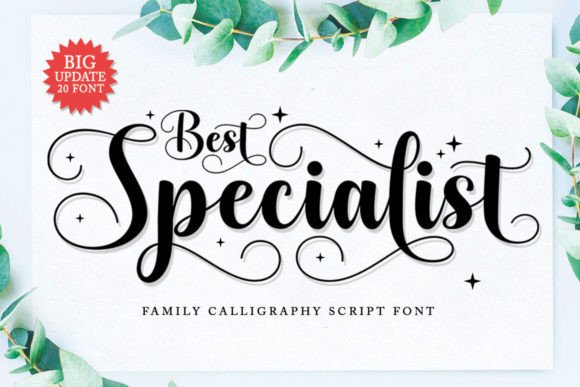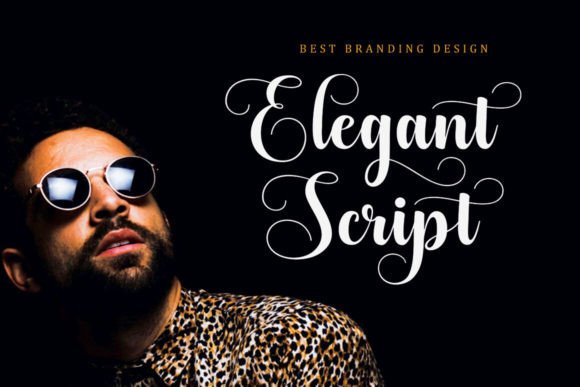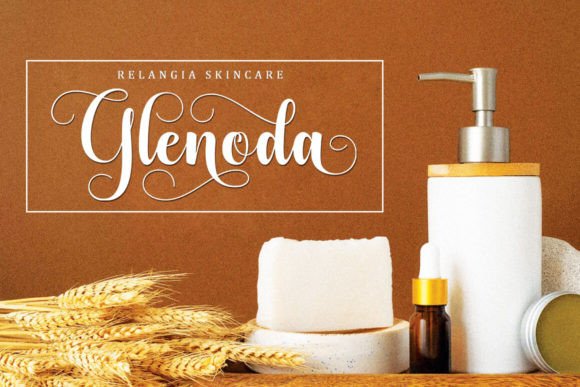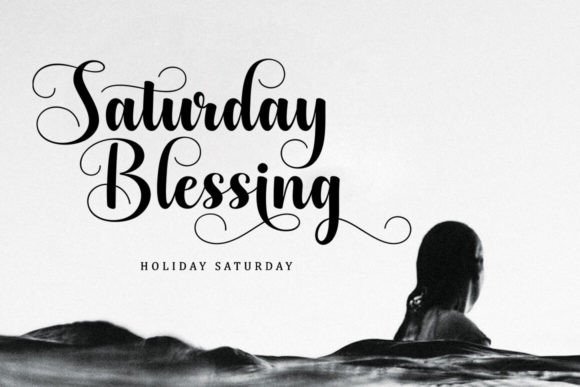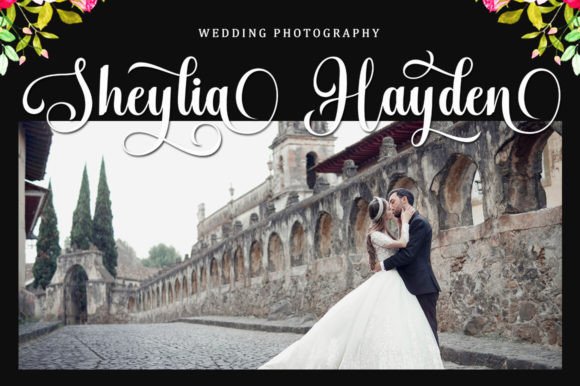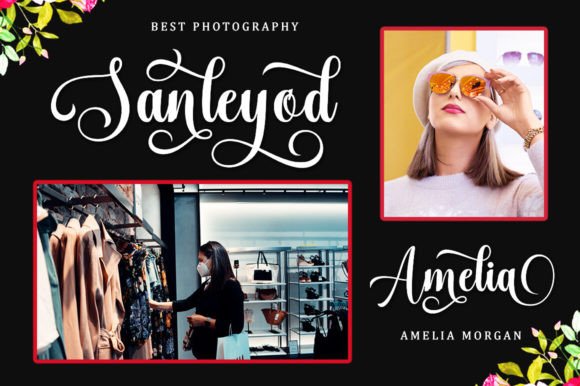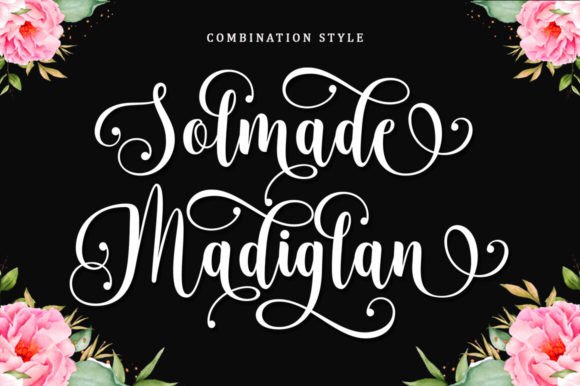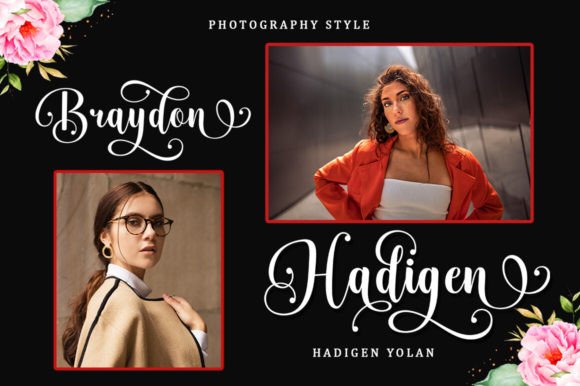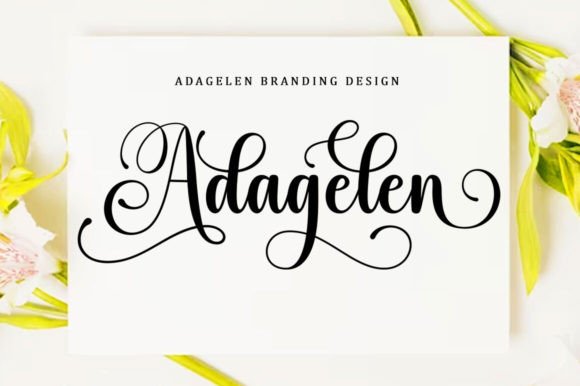
Best Specialist Font
Best Specialist are attractive because they are sleek, clean, feminine, sensual, glamorous, simple, and very easy to read, thanks to a lot of fancy lettering. I also offer a decent number of stylistic alternatives for some of the letters. Classic style is very suitable to be applied in various formal forms such as invitations, labels, restaurant menus, logos, fashion, makeup, stationery, novels, magazines, books, greeting/wedding cards, packaging, labels or all kinds of advertising purposes.